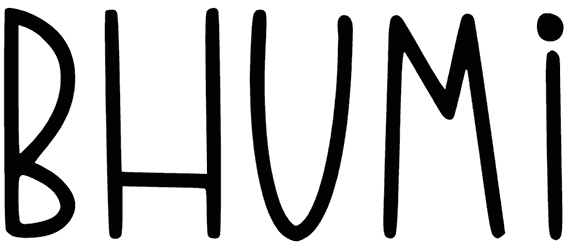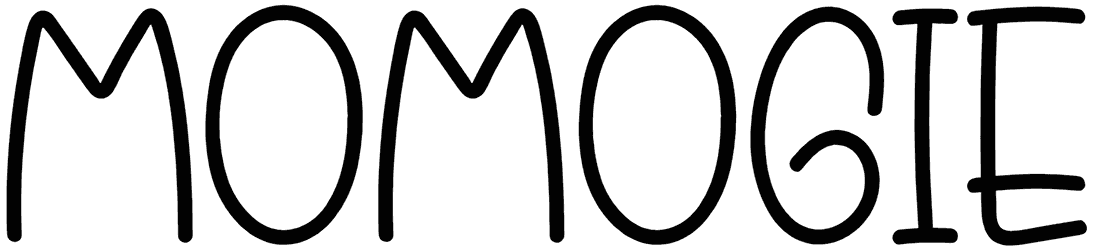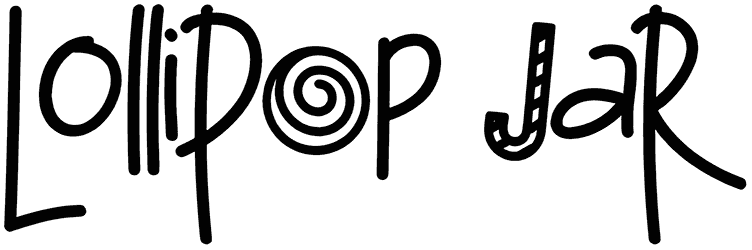
Cookie Chips Font
Need a splash of cuteness on your text and don’t know how to do it? A script font is always the best solution! This font is called Cookie Chips and with its handwritten design, it conveys a fun and cheerful feeling to the reader. You can use it for product packaging, fashion blogs, advertisements, cosmetic promotions, channel banners, and magazines.
Designed by: Des Gomez